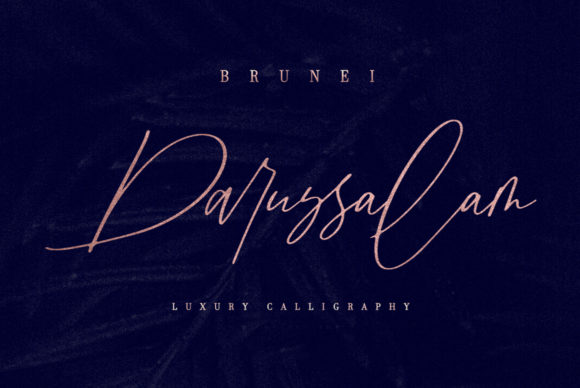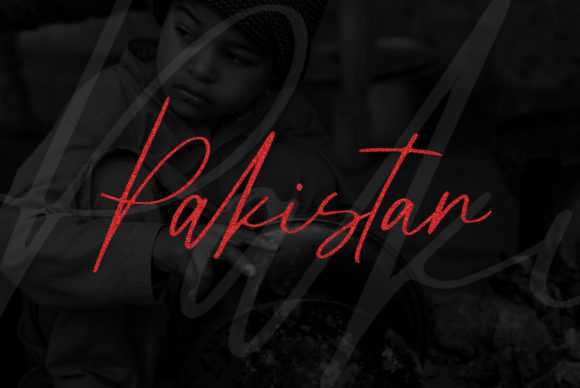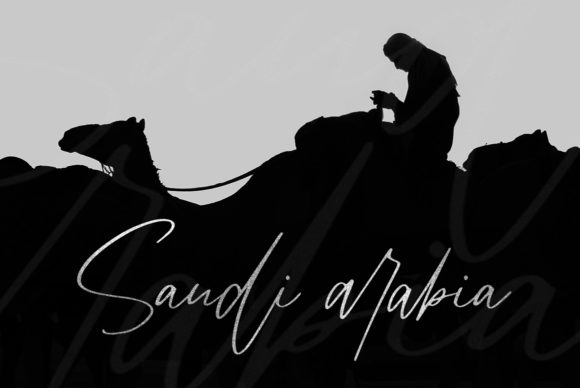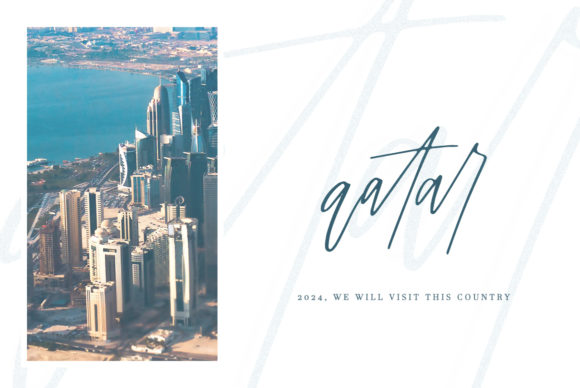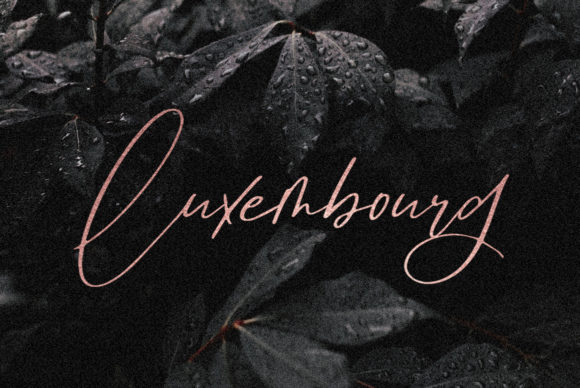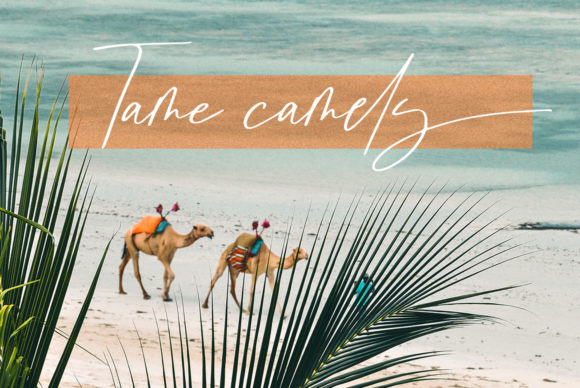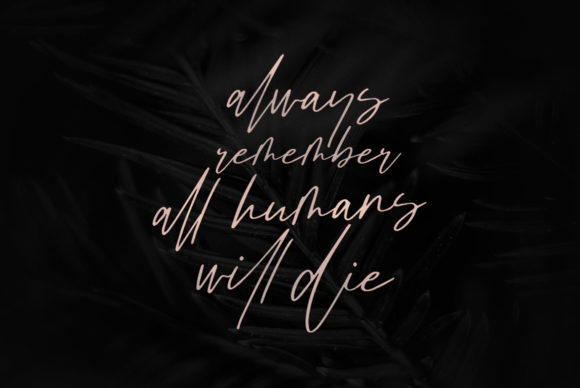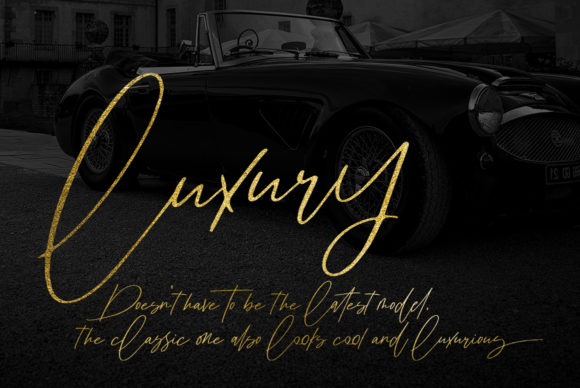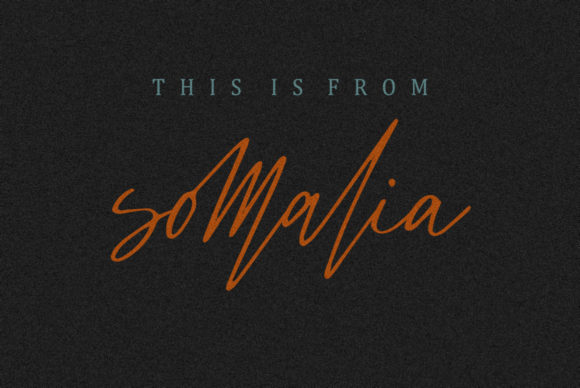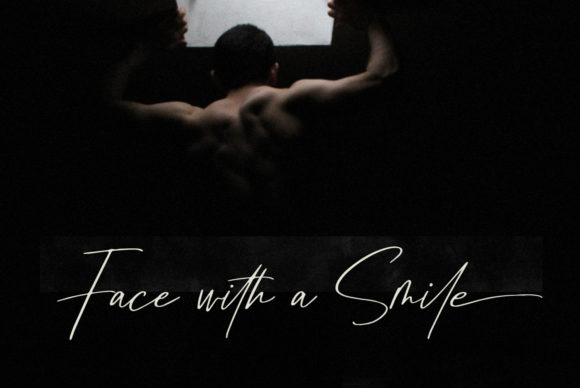
Brunei Darussalam Font
About Brunei Darussalam Font
The Brunei Darusssalam is a fashionable handwritten font. Its elegant signature style will add a natural touch to any design.
It can be used for branding, logos, business cards, posters, invitations, greeting cards, news, product packaging, blog posters, and every other design which needs a personal charm.